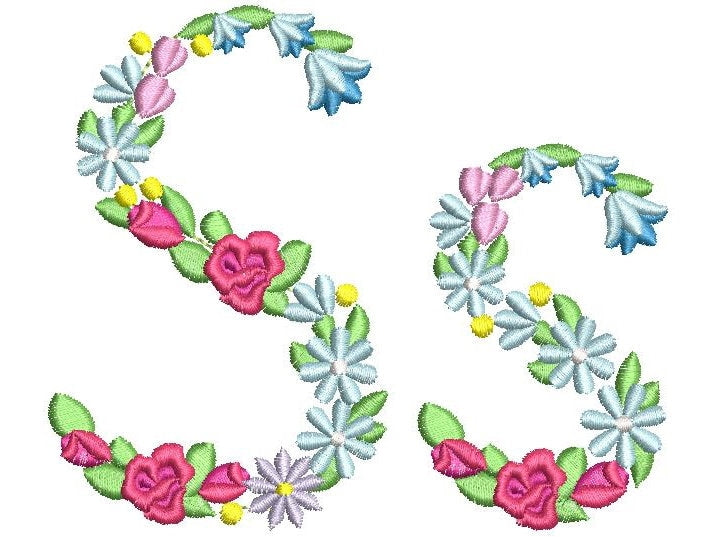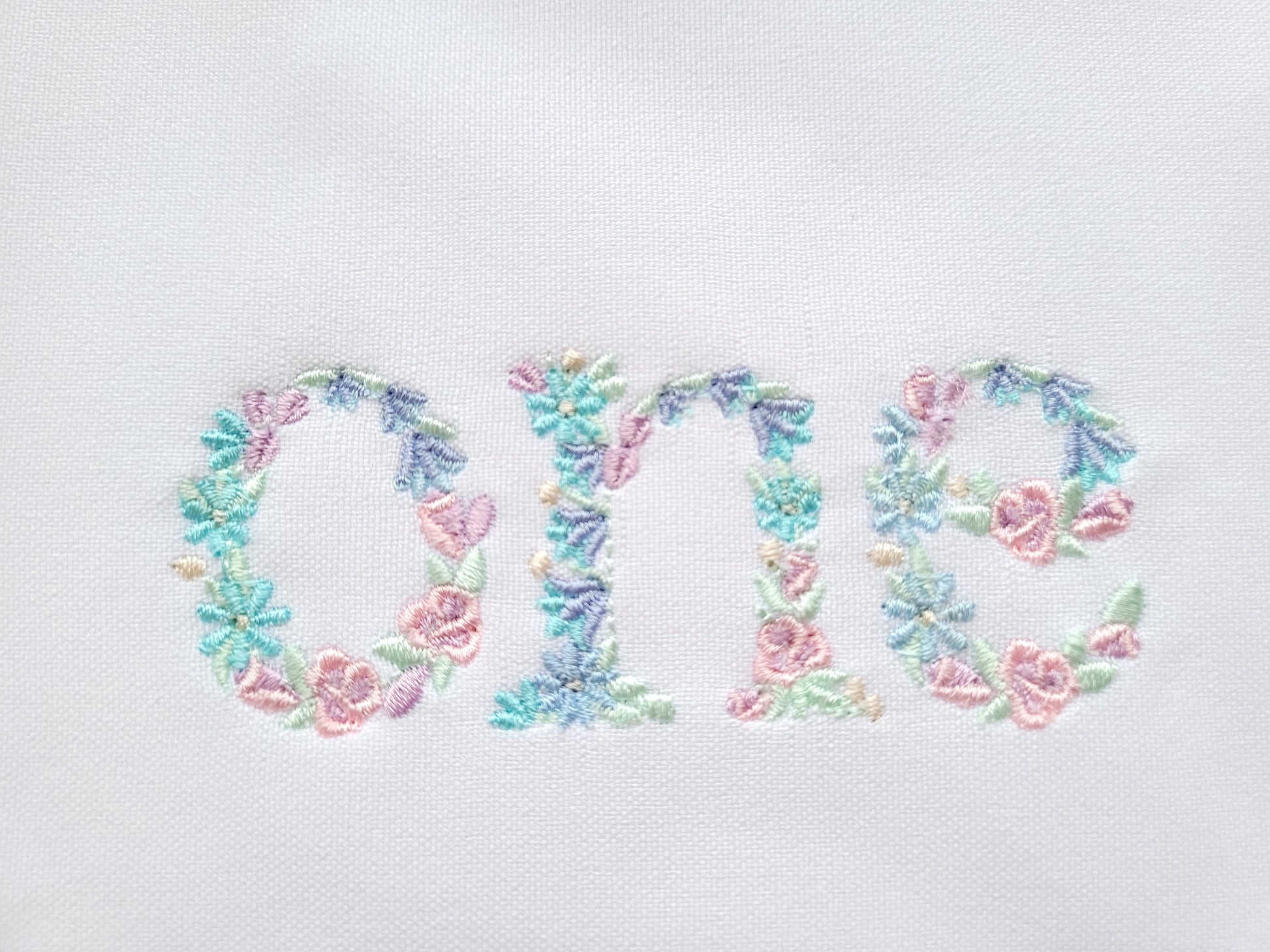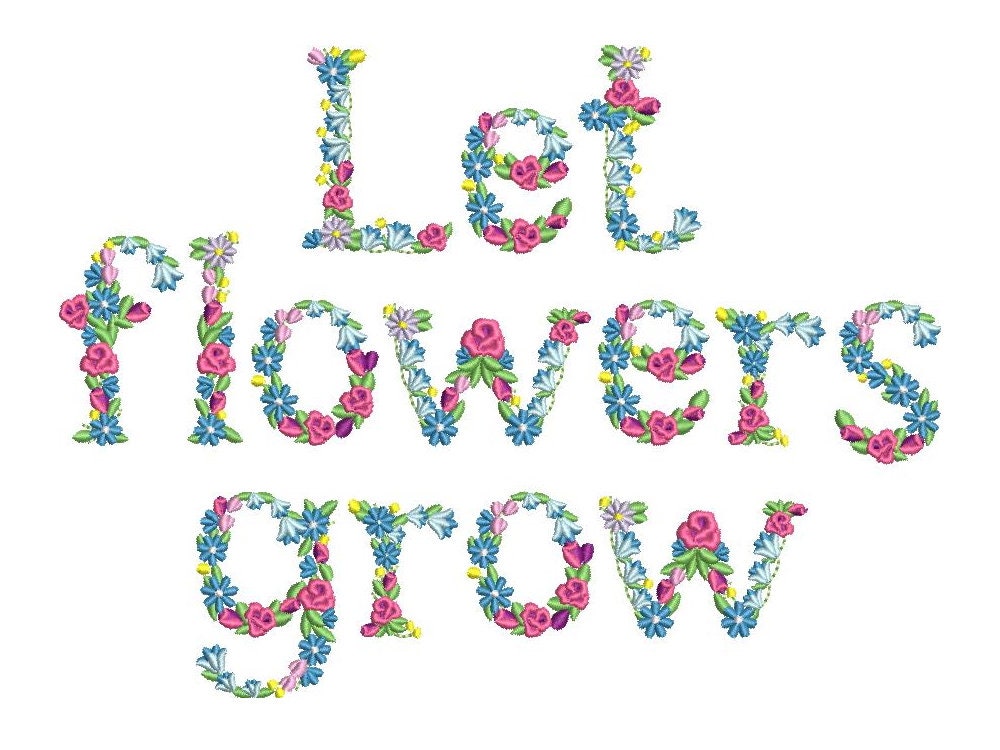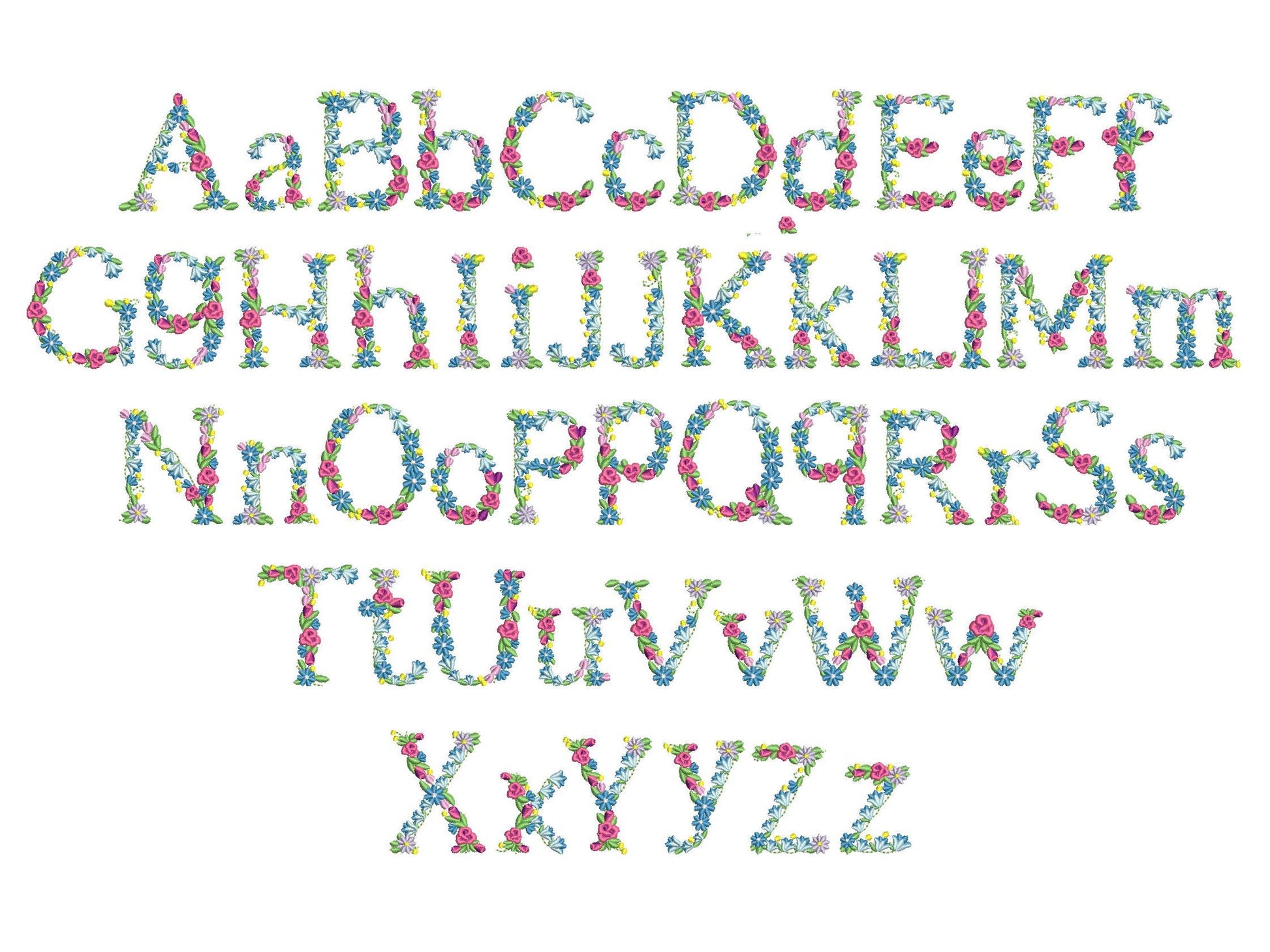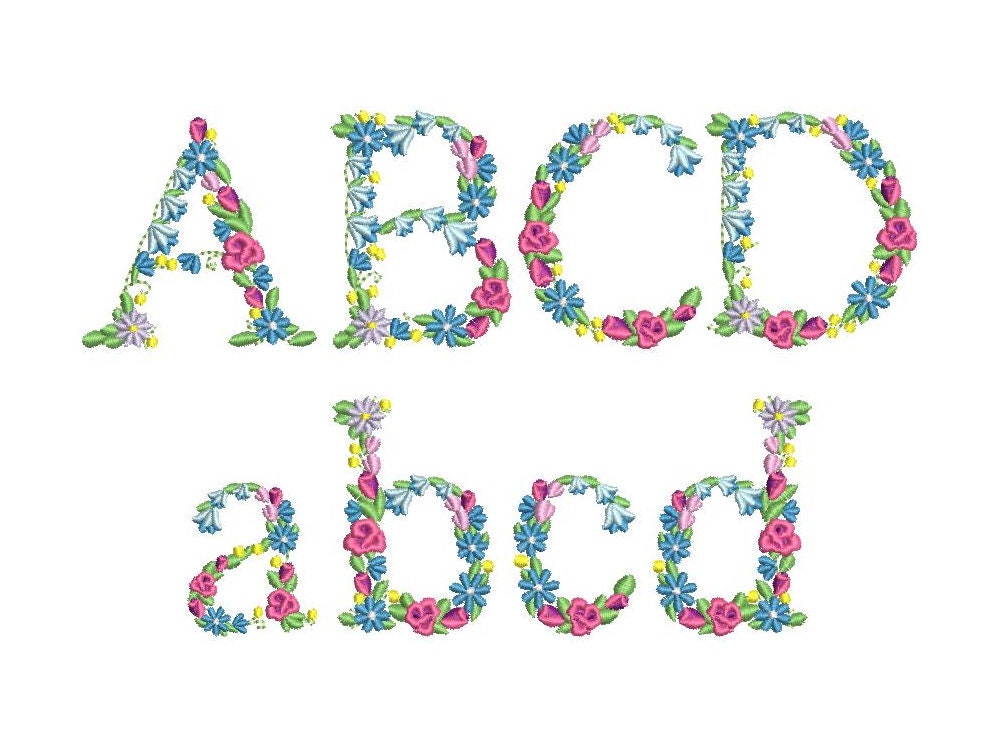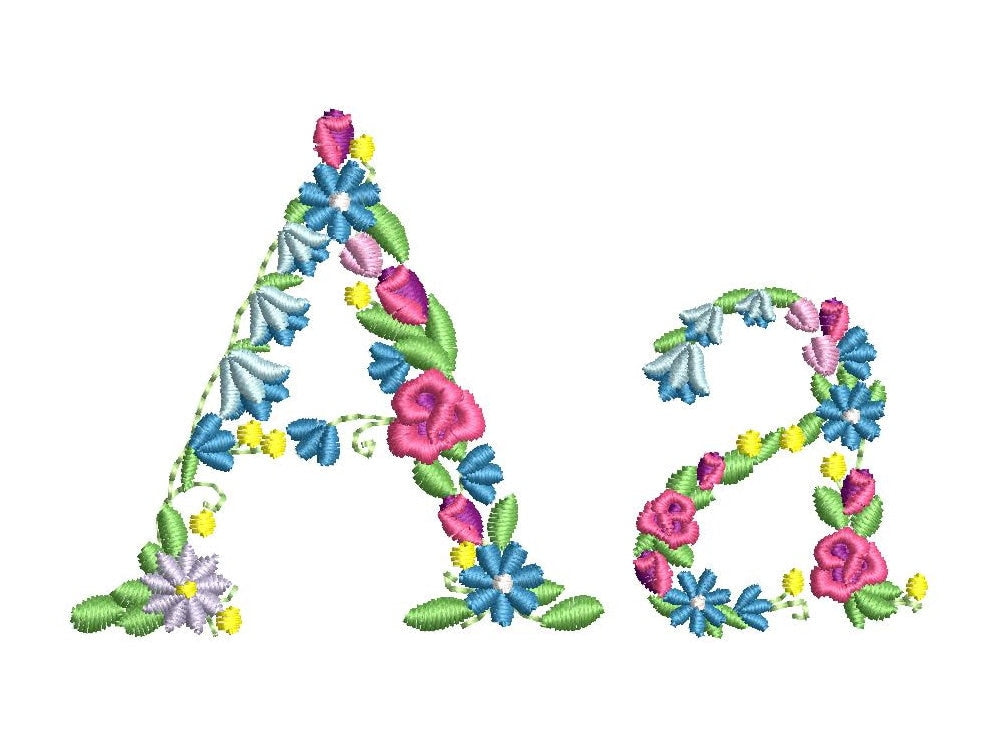
This stitched out great! Would recommend this font!
item did not stitch out well
I really wasn't impressed with how this stitched out. I purchased the other floral font from this seller, and it looks fantastic, but this one just falls short. The little dots around the letters do not look good at all. I ended up skipping that step after seeing how they turned out. The majority of the letters just don't have enough flowers/leaves to fill out the letter shape, so you would have to space out each letter a lot in order to read the word. I have purchased many other files from this seller and loved them, but this one needs work.
I thought the letters would be more dense but it turned out cute anyways
looks good and great work
Stitches out very nicely. Thanks
Stitched out perfectly. Love design.
The item was great! -
Very beautiful font. I will use it a lot! Sews out well.
Very nice. Stitched out well
Loved this font and worked great on my brother SE600 machine.
Love it
Amazing as always
This font is absolutely beautiful-it is worth the work with all the colors and stitch count!! Do NOT pass on this font!
It is such a pretty file but the backing is so thick that it's scratchy
Loved the font! A lot of easy directions too!
Perfect. Thank You! Looks beautiful
This is a beautiful font. I do think however that there are too many small jump stitches that take a very long time to trim.
I absolutely love this floral font!
Stitched beautiful
Cute font! Can't wait to use it.
It's really pretty and stitched out well, but it is suppperrrr dense!
I love it perfect stiches.
Beautiful font! Stitches out perfectly :)
Stitched out pretty.
I'm giving this a 5 star because I believe the file serves its purpose. The letters are very ornate and stitch out beautifully. My only negative is that I wish all the letters that shared the same flower were the same color... I used the capital letters for Grammy, with each letter there were 10-11 colors.... each letter had mostly same flowers but different colors. At one time I had 69 colors on my screen to input Still a very beautiful file and would totally recommend!
It sewed Perfect! Loved it
love these designs. the bluebells are gorgeous.